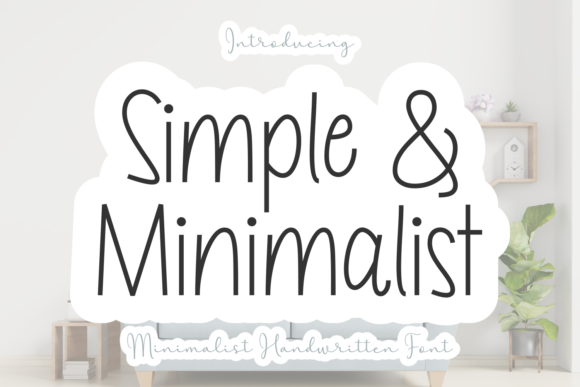
Are you looking for a simple and minimalist font that will take your graphic design projects to the next level? Look no further than Simple and Minimalist, a stunning script font created by the talented Jasm from 7NTypes.
This font is perfect for anyone who wants to add a touch of elegance and sophistication to their work. With its clean lines and neat handwritten style, Simple and Minimalist is the perfect choice for a wide range of projects, from logos and branding to social media graphics and print designs.
What sets Simple and Minimalist apart from other script fonts is its incredible versatility. It can be easily matched to an incredibly large set of projects, making it the perfect choice for anyone looking to create a cohesive and polished look across all their branding materials.
So why choose Simple and Minimalist for your next project? Not only does it look great, but it also has a wide range of emotional benefits that will help you stand out from the crowd. For one thing, its minimalist style conveys a sense of sophistication and elegance, making it the perfect choice for anyone looking to create a high-end brand image.
In addition, its clean lines and simple design make it incredibly easy to read and understand, which is essential for any graphic design project. And with its handmade feel, Simple and Minimalist has a warmth and personality that is often missing from other script fonts.